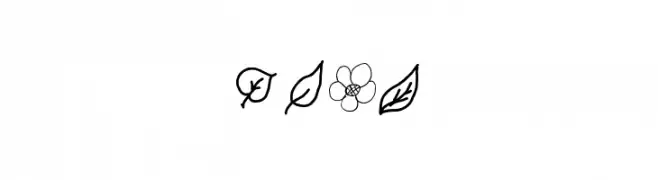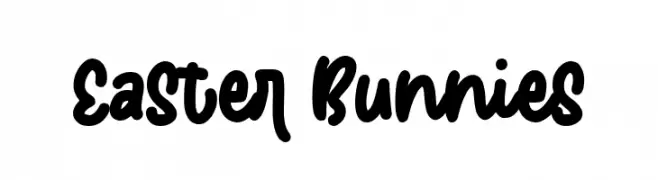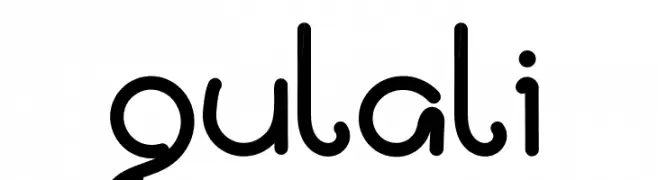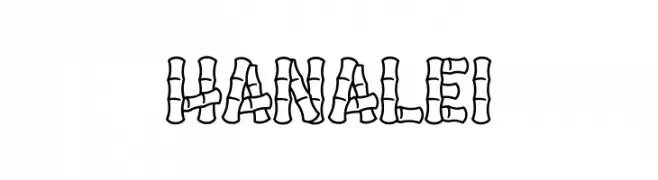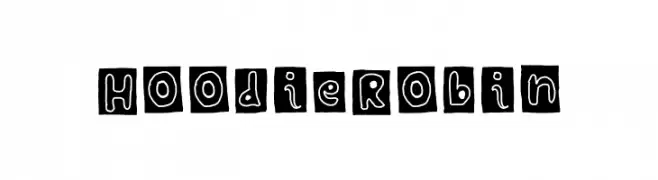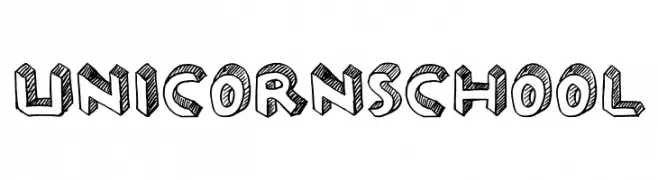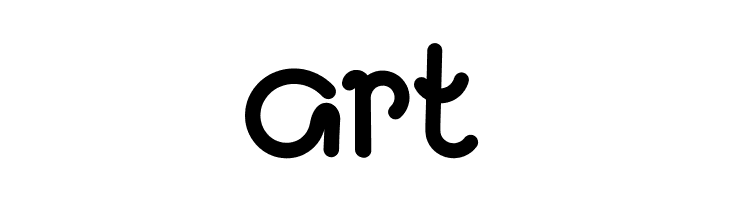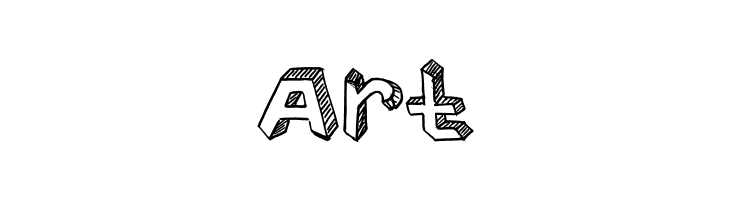
A playful, rounded font with whimsical loops and consistent stroke weight.
A bold, playful font with rounded, chunky letters perfect for a youthful and fun vibe.
A bold, handwritten font with a playful and casual style.
A playful, hand-drawn style font with bold, outlined characters.
A playful, hand-drawn font with a sketch-like, three-dimensional effect.
A whimsical and playful display font with unique, illustrative letter designs.
A playful, hand-drawn font with outlined letters in irregular squares.
Hand-drawn botanical icon font with playful leaf and plant illustrations.
A playful, handwritten font with irregular, whimsical strokes.
A bold, playful, hand-drawn font with rounded, connected characters.